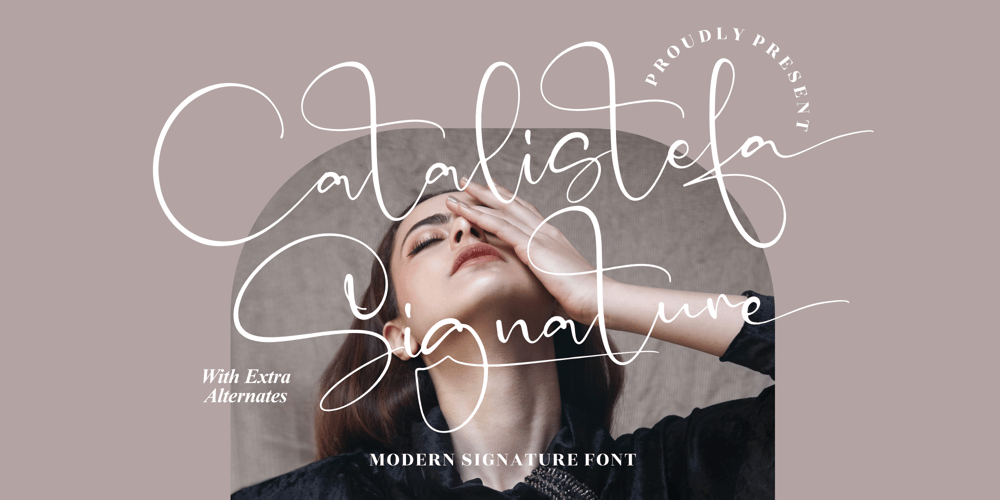
Catalistefa Signature Font Family was designed by Heru Utama Putra and published by Letterena Studios. Catalistefa Signature contains 2 styles and family package options. Catalistefa Signature is a lovely and delicate script font that exudes elegance and class. This font was particularly crafted for those who need a beautiful and refreshing look to their designs.